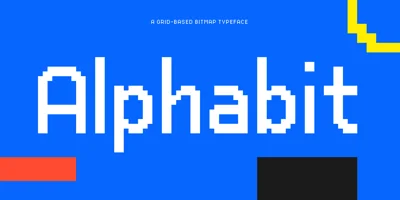
Alphabit Font
Alphabit Font is perfect for digital technology branding, cryptocurrency platform interfaces, blockchain company communications, fintech application designs, data processing system displays, binary code educational materials, computer programming documentation, digital security firm branding, algorithmic trading platforms, and cutting-edge tech startup marketing campaigns.
What makes Alphabit Font so exciting is its extraordinary ability to capture the fundamental essence of digital communication through systematically pixelated letterforms that seem constructed from the same binary code that powers the digital revolution and blessed with the mathematical precision that transforms ones and zeros into the complex information systems that define modern technological civilization. This font embodies the essence of digital innovation and computational excellence, featuring algorithmically crafted characters that appear designed by programmers who understand that every letter must reflect the systematic logic and precise execution that makes digital technology possible. The digitally optimized letter shapes create an atmosphere of technological sophistication and computational authority, making every word feel like it's been processed through advanced algorithms and carries the power to unlock the infinite possibilities hidden within digital data streams.
The Alphabit Font family includes Ultra Light, Light, Regular, Medium, Bold, and Heavy weights, along with monospaced and bitmap variations for authentic digital applications. Each style maintains the font's distinctive digital character while offering complete versatility for different technological applications, from subtle interface elements to commanding headlines that announce breakthrough developments in digital innovation and computational achievement.
This revolutionary typeface brings authentic digital technology aesthetics to contemporary design projects. The Alphabit Font provides designers with an exceptional tool to create memorable brand identities that communicate innovation, digital expertise, and computational excellence. Whether you're developing tech startup branding, designing cryptocurrency platforms, or creating digital transformation communications, this font delivers unmatched technological credibility and digital sophistication.
The precisely engineered letterforms in Alphabit Font feature optimal pixel structures and mathematical proportions that ensure perfect performance across all digital platforms while expressing the systematic thinking and algorithmic precision that define successful technological innovation. Each character has been programmed to maintain maximum clarity while conveying the computational reliability and digital authority that separate advanced technology companies from conventional businesses. The font's distinctive personality makes it ideal for applications requiring genuine technological authority and digital innovation credibility.
Technology industry professionals appreciate how Alphabit Font effortlessly communicates expertise, digital fluency, and computational excellence while adapting seamlessly to complex software interfaces and multi-platform technology systems that require consistent performance across diverse digital environments. The comprehensive glyph set includes digital symbols, programming notation, computational indicators, and extensive international language support, ensuring global compatibility while maintaining its distinctive alphabit identity. This makes it an invaluable resource for technology companies, software developers, cryptocurrency platforms, and any organization seeking typography that embodies the fundamental principles of digital innovation, computational precision, and the kind of systematic excellence that transforms abstract mathematical concepts into practical technological solutions that power the digital economy and connect billions of people through the invisible networks of code that make modern communication, commerce, and creativity possible in our increasingly digital world.